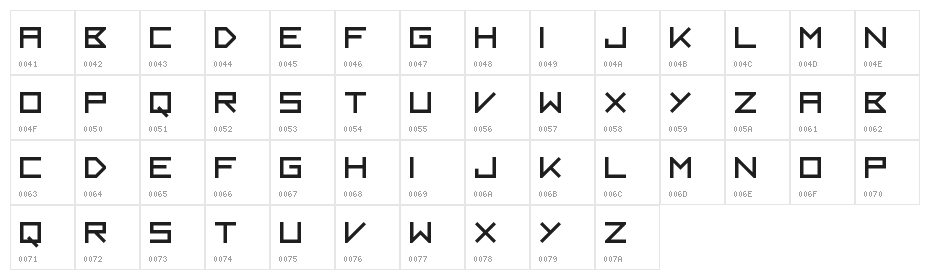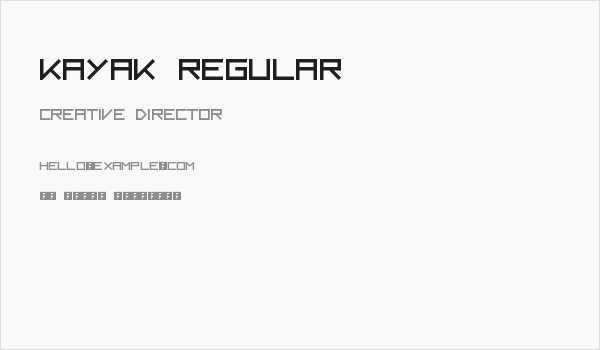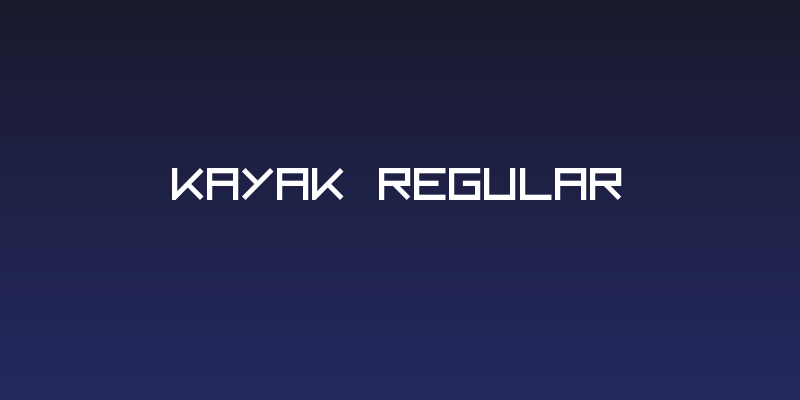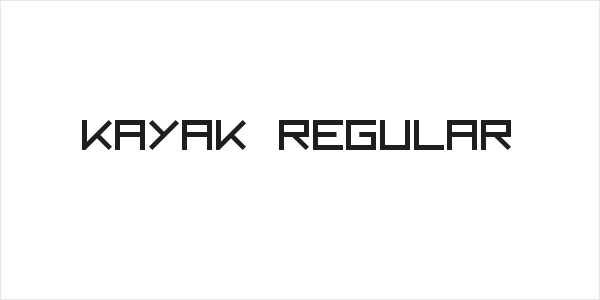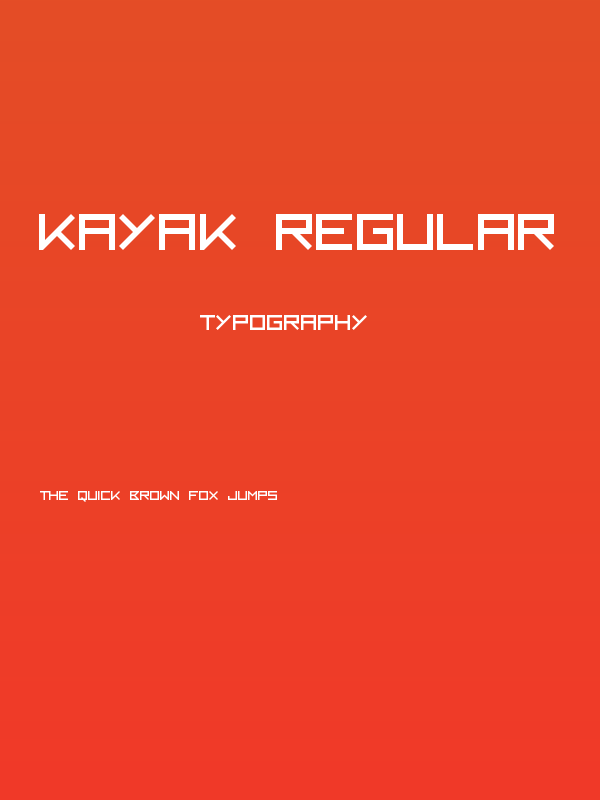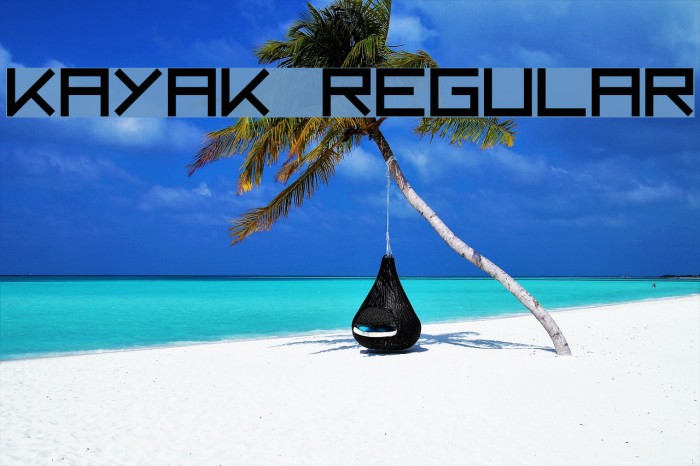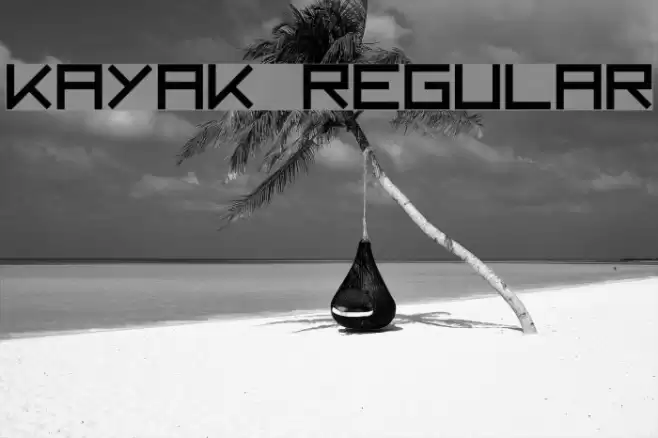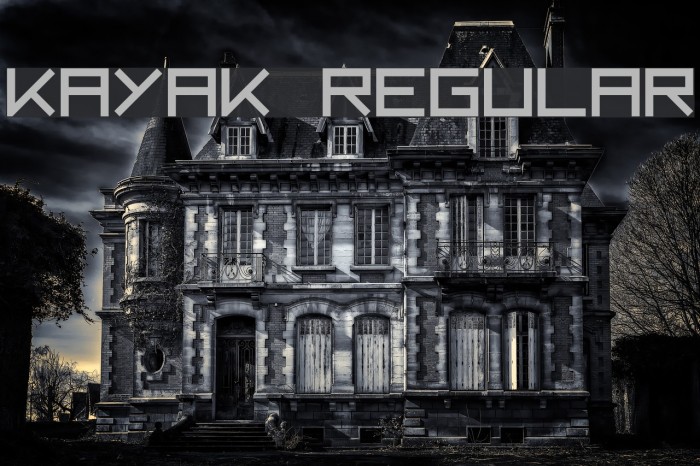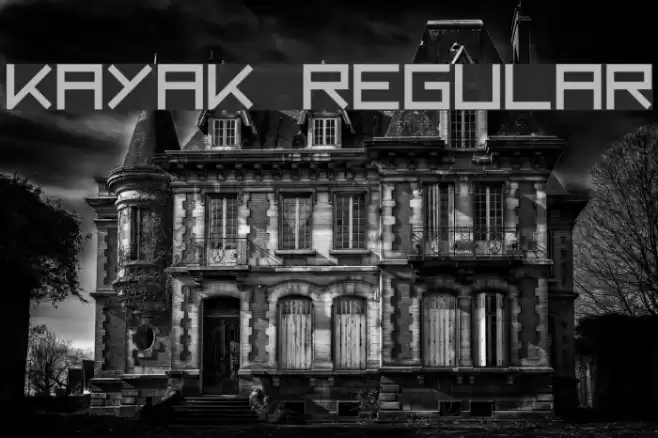
Kayak Regular Font
Kayak Regular Description
This font features a geometric and angular design, characterized by sharp edges and a modern aesthetic. The uppercase letters are bold and structured, with a consistent height and width that gives a uniform appearance. The lowercase letters maintain the same geometric style, ensuring readability while adding a unique flair. Numbers and special characters are designed to match the overall angular theme, making them stand out with their distinct shapes. The font's design is clean and precise, making it suitable for contemporary projects that require a strong visual impact.
| Proposed Projects | Ideal for branding, headlines, posters, and digital media where a modern and striking appearance is desired. |